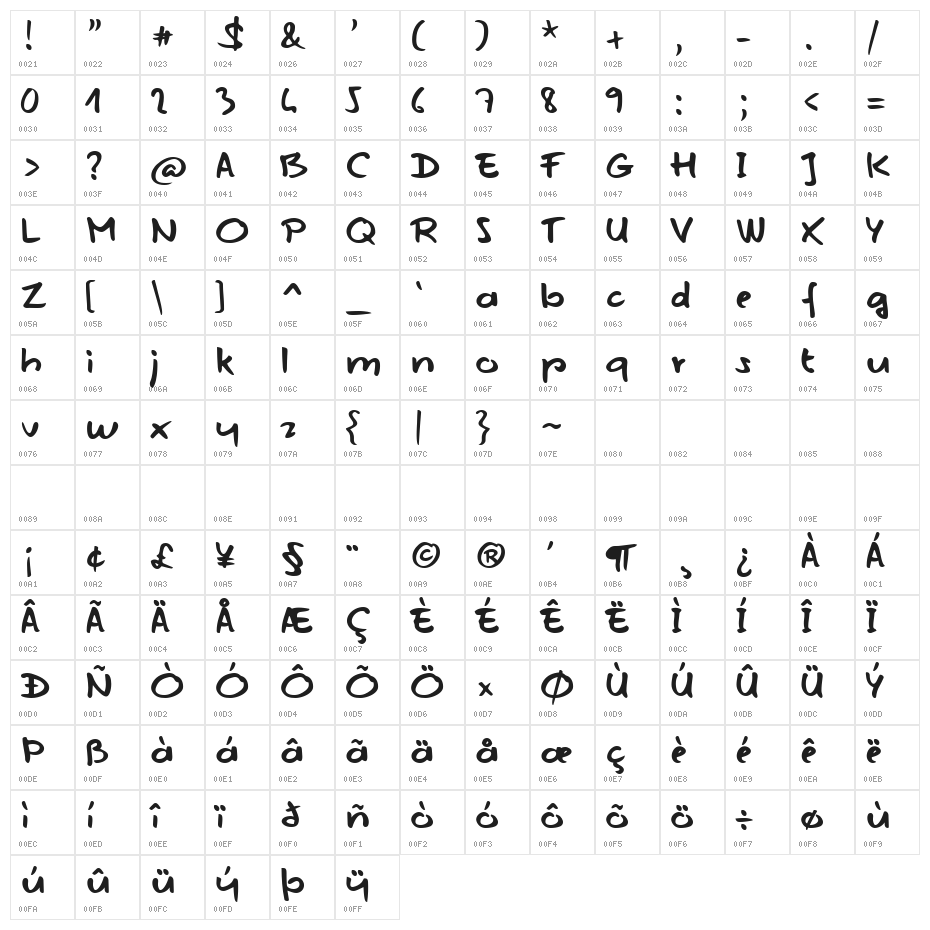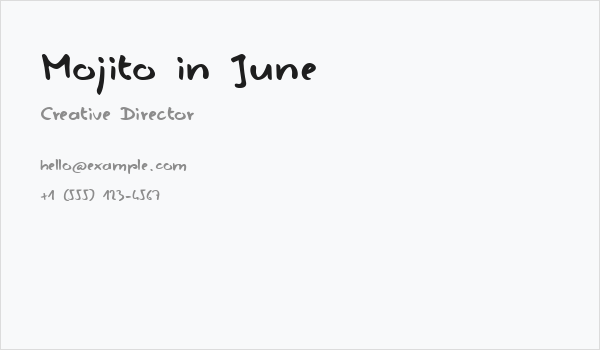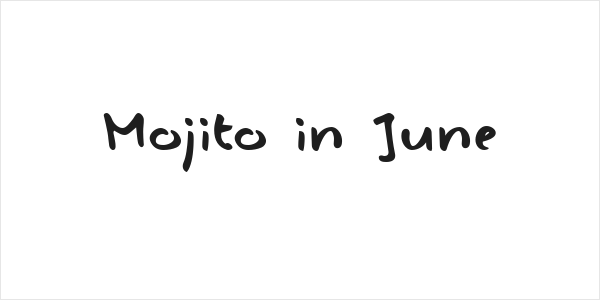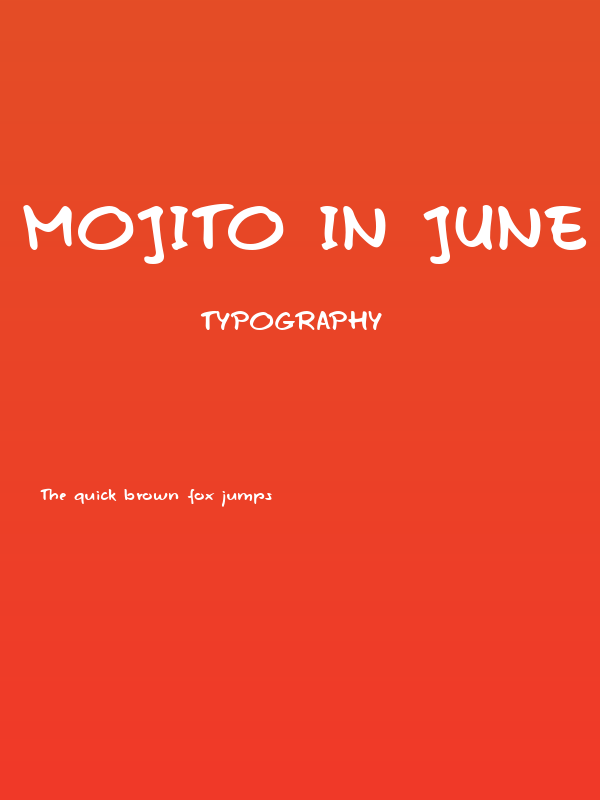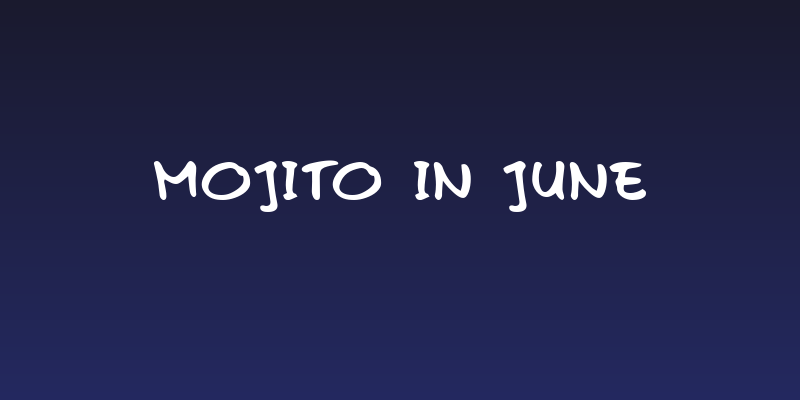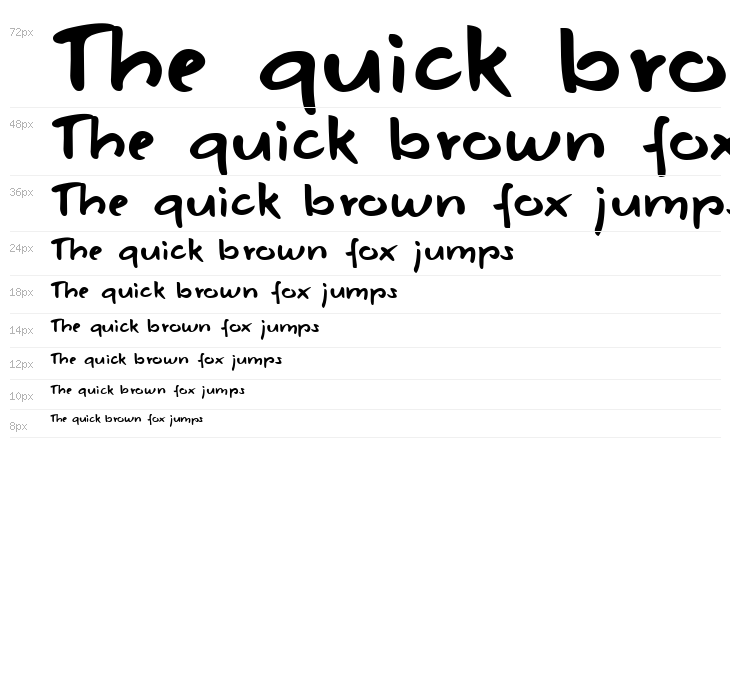
Mojito in June Font
Mojito in June Description
This playful and energetic font features a handwritten style with a casual and informal appearance. The letters are bold and slightly slanted, giving a sense of movement and spontaneity. The strokes are smooth and rounded, with a consistent thickness throughout, which adds to the font's approachable and friendly vibe. The characters are well-spaced, ensuring readability while maintaining a lively aesthetic. This font includes a full set of uppercase and lowercase letters, numbers, and a variety of special characters, making it versatile for different design needs.
Overall StylePlayful
Use CaseLogos, Headlines, Informal Text
Proposed ProjectsIdeal for greeting cards, playful branding, children's books, and casual invitations.